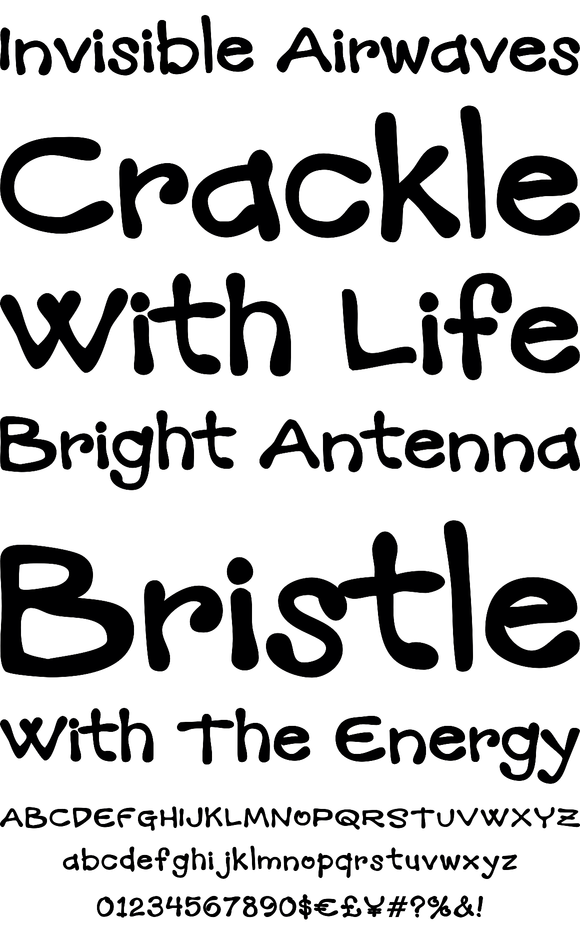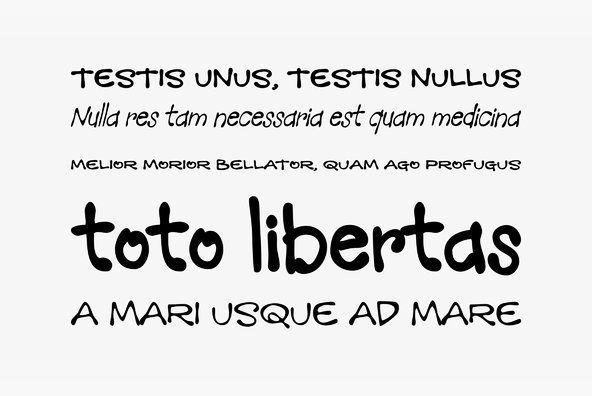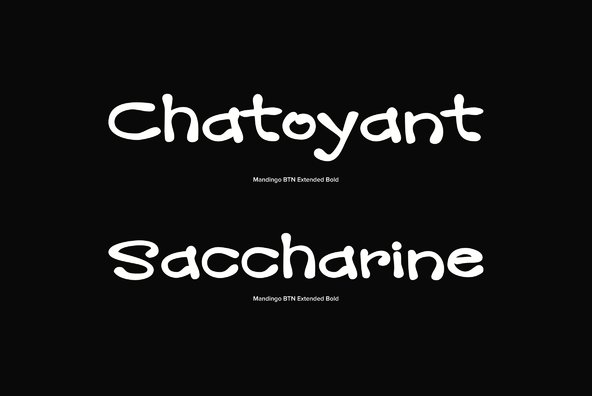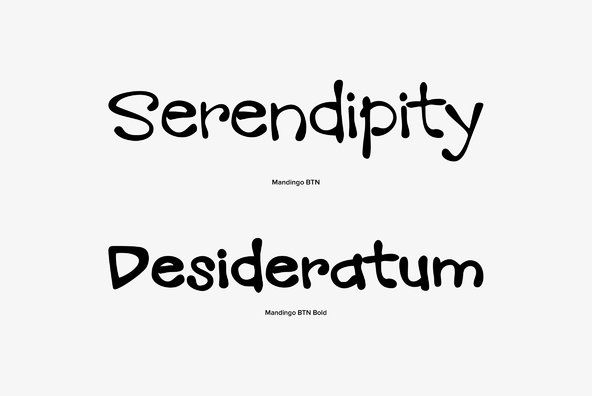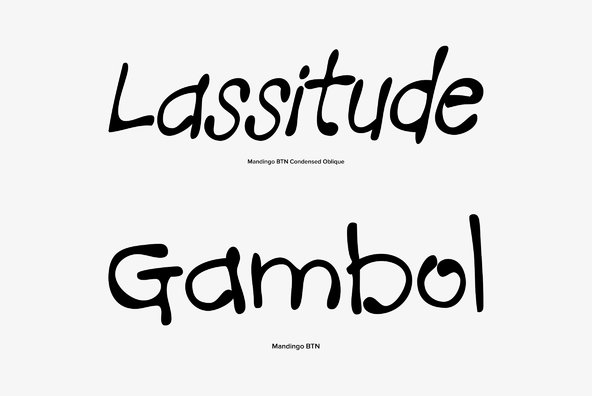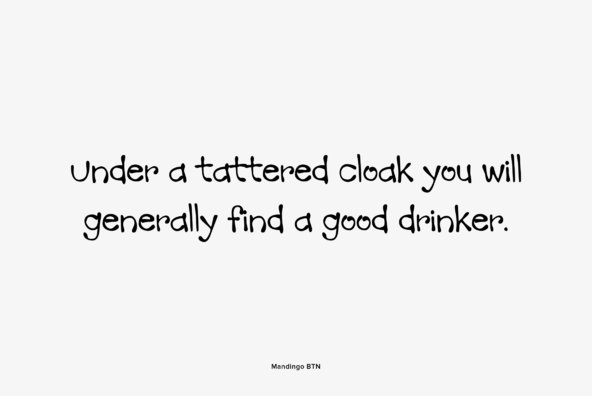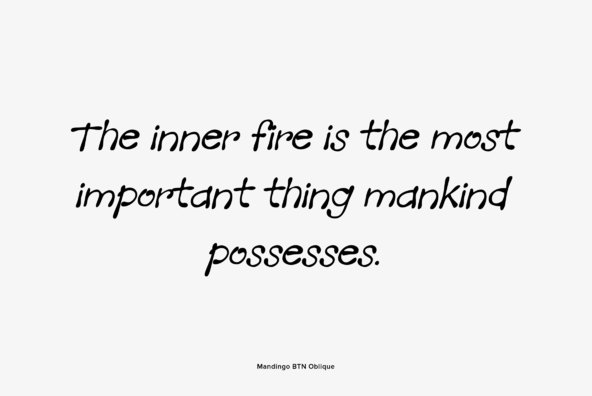
Mandingo
Mandingo is a fun and flowing typestyle with a gummi-gooey look to it. Including variants in weight as well as widths, it offers a range of possibilities for use in fun and comic style designs.